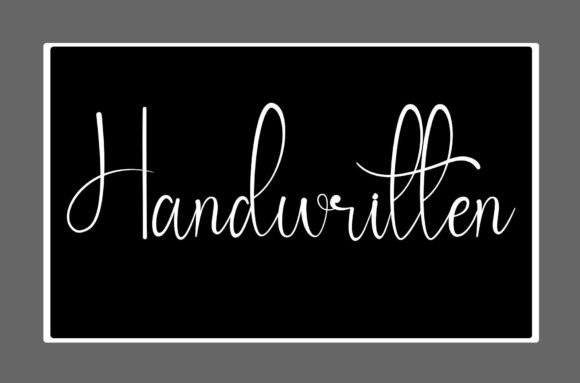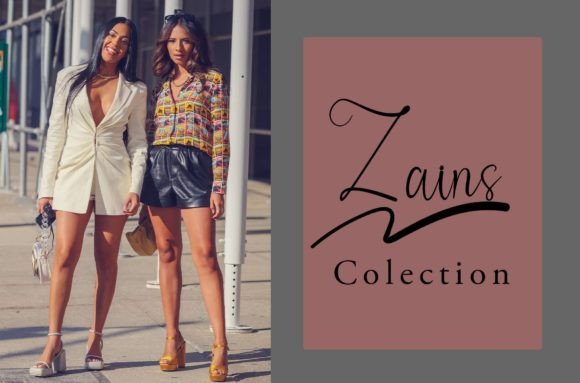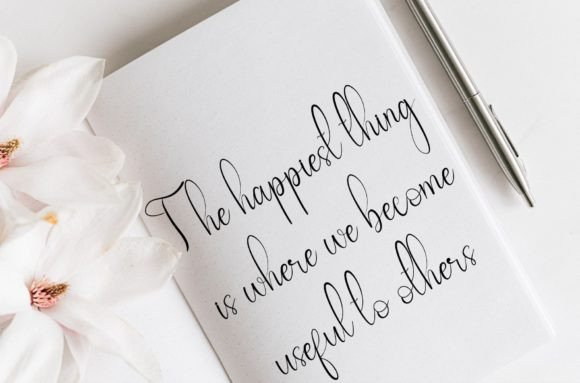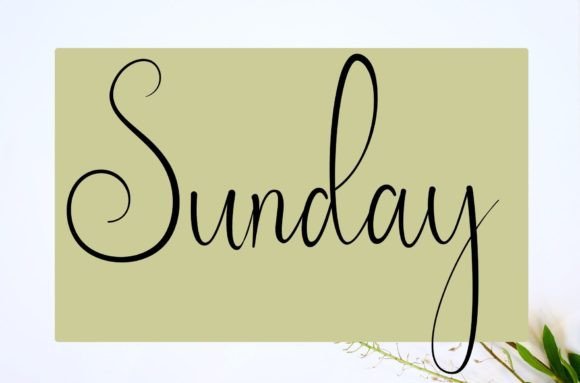
“Handwritten” is a smooth, elegant, and flowing handwritten font designed to bring a touch of beauty and balance to your projects. With its graceful and well-balanced characters, this font seamlessly fits into a wide array of designs. Incorporate it into your most creative ideas, and witness how your projects come to life with a sense of elegance and sophistication.
The smooth and flowing nature of “Handwritten” adds a touch of fluidity to your text, making it suitable for various design applications. Whether you’re working on invitations, branding materials, social media graphics, or any other creative project, this font contributes to a harmonious and visually pleasing aesthetic.
The elegant and balanced characters of “Handwritten” make it a versatile choice for designs that require a refined and sophisticated look. Its timeless style ensures that it remains a valuable asset for a range of creative endeavors.
In summary, “Handwritten” is more than just a font; it’s a design element crafted to bring smoothness, elegance, and flow to your projects. Let this font be the choice that enhances your most creative ideas, infusing them with a sense of beauty and balance that captivates and elevates the overall aesthetic.